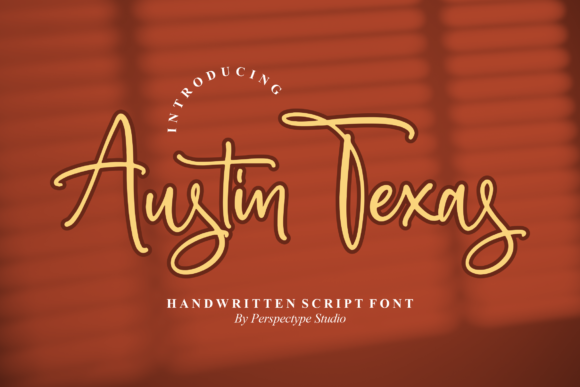
The Austin Texas Font: A Designer’s Dream Come True
I’ll never forget the design project that led me to discover the Austin Texas font. I was working on a branding project for a wedding planner, and I needed a font that would capture the elegance and whimsy of a summer wedding. I spent hours scouring the internet for the perfect font, but nothing seemed quite right. That was until I stumbled upon Austin Texas.
This beautiful handwritten font has been a game-changer for my design projects, and I’m excited to share it with you. In this article, we’ll dive into the world of Austin Texas, exploring its features, how to use it, and some similar fonts you might love.
An Honest Review of Austin Texas Font
• ✨ Elegant and curvy lines that add a touch of sophistication to any design
• ✅ Perfect for a variety of projects, from product packaging to social media graphics
• 💕 Highly legible, even at small sizes
• 🎉 Unique and creative, making it stand out from more traditional fonts
While Austin Texas is an amazing font, it’s not perfect. Here are a few things to keep in mind:
• ⚠️ Some letters may appear a bit narrow or tall, which can affect the overall flow of the text
• 🤔 Limited availability of certain glyphs or special characters
3. Experiment with OpenType features, such as ligatures and stylistic alternates, to add visual interest to your design
3. Explore the various glyphs and stylistic alternates available, such as swashes and ornaments
The Story Behind Austin Texas Font
Austin Texas was designed by a talented font creator who wanted to capture the essence of the vibrant city of Austin, Texas. The font’s elegant lines and curvy shapes are inspired by the city’s eclectic mix of art, music, and culture.
Q: What type of projects is Austin Texas best suited for?
A: Austin Texas is perfect for a variety of projects, including product packaging, branding, magazine covers, social media graphics, and wedding designs.
Q: Is Austin Texas a difficult font to read?
A: No, Austin Texas is highly legible, even at small sizes, making it perfect for body text and headlines.